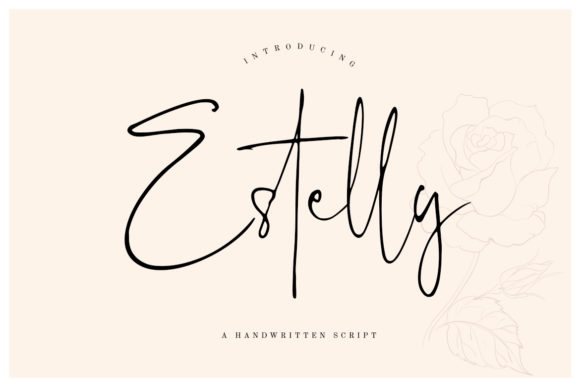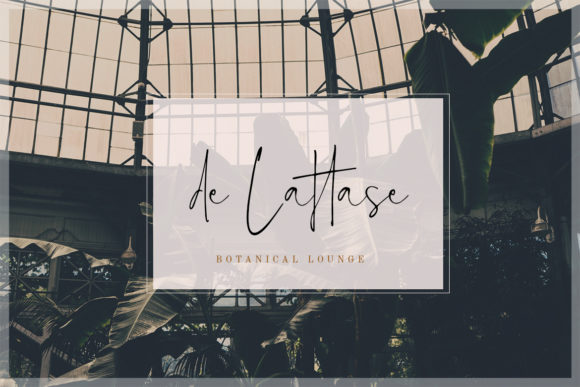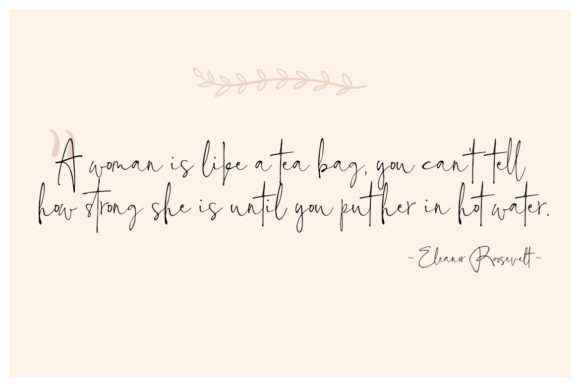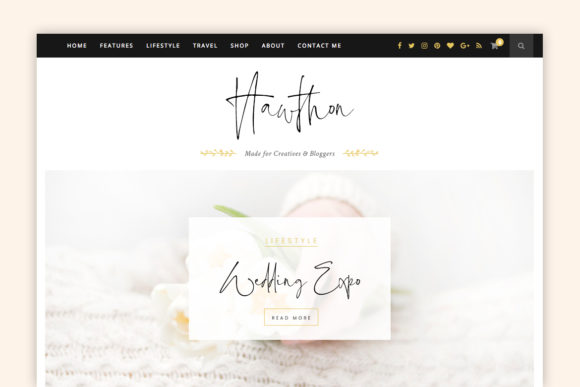
Estelly Font
About Estelly Font
The Estelly is a handwritten stylish signature font. Its classy energetic look makes it perfect for any awesome projects.
It can be used for branding projects, logos, wedding designs, social media posts, advertisements, product packaging, product designs, label, photography, watermarks, invitations, stationery, and any other project that needs a handwriting taste.